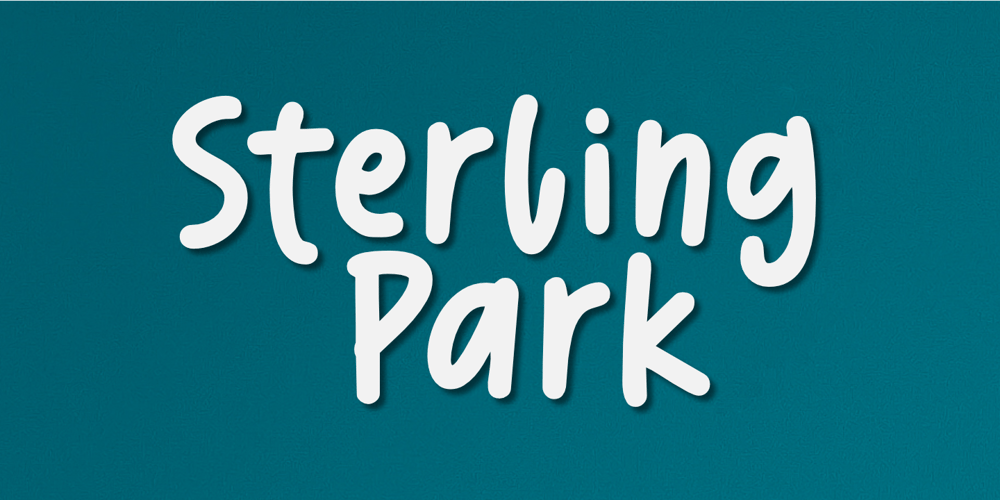
Sterling Park
Sterling Park font
Sterling Park Font Family was designed by Nurul Hidayani and published by Olivetype. Sterling Park contains 1 styles and family package options. Meet Sterling Park, this font is perfect for adding a little love and warmth to your writing–in a way that feels authentic and personal. Whether you’re writing love notes or cards or designing a tshirt, this hand-drawn font will add a friendly and authentic touch to your creations.So what’s included : Basic Latin Uppercase and Lowercase Numbers, symbols, and punctuations Multilingual Support. Simple Installations works on PC & Mac Thank You.